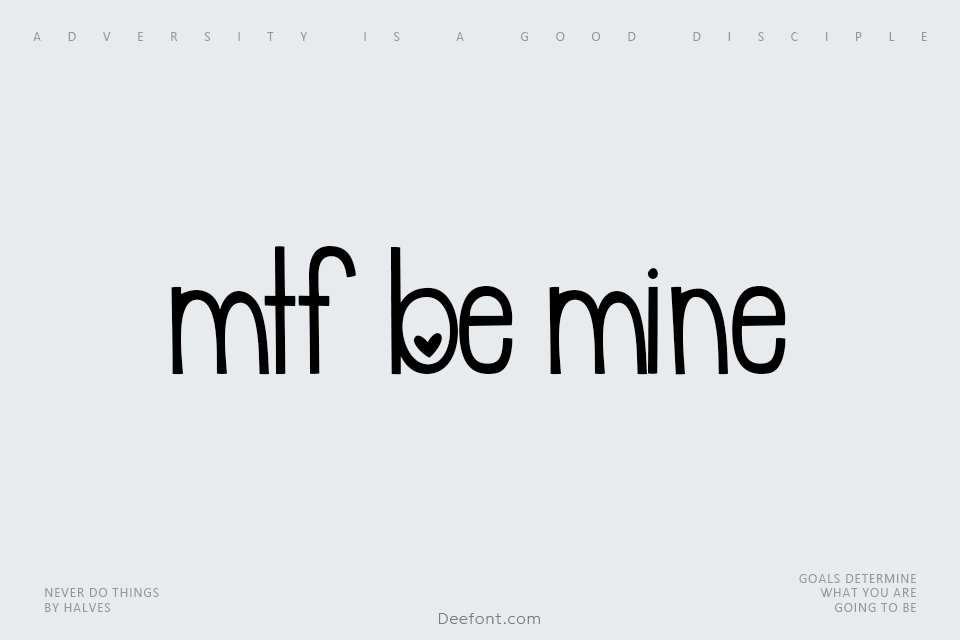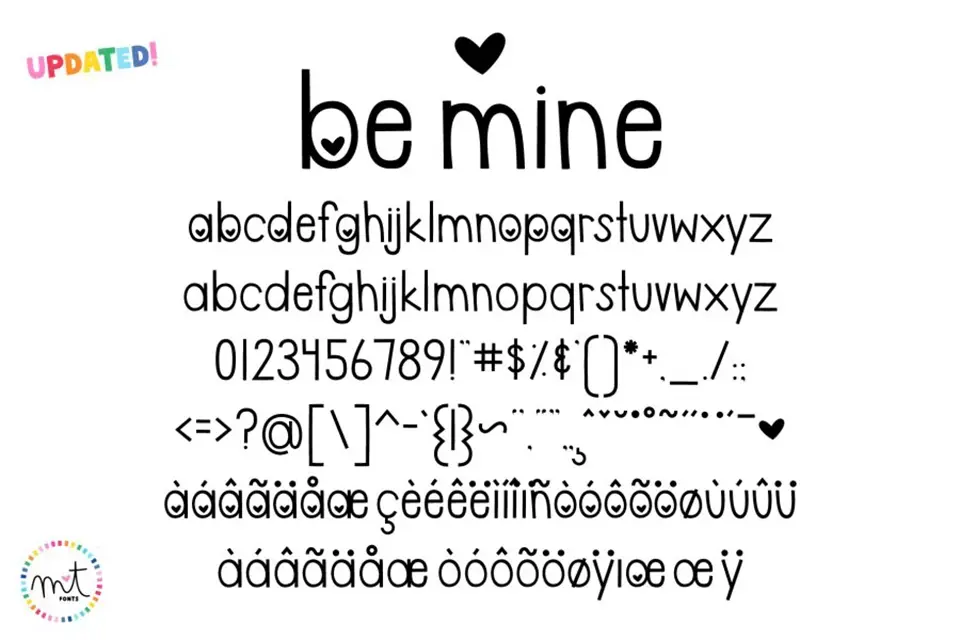
MTF Be Mine Font
MTF Be Mine is a delightful handwritten font by Miss Tiina Fonts featuring occasional heart decorations, perfect for creating romantic designs, Valentine-themed content, wedding invitations, love letters, greeting cards, and creative projects with a touch of whimsy and affection.